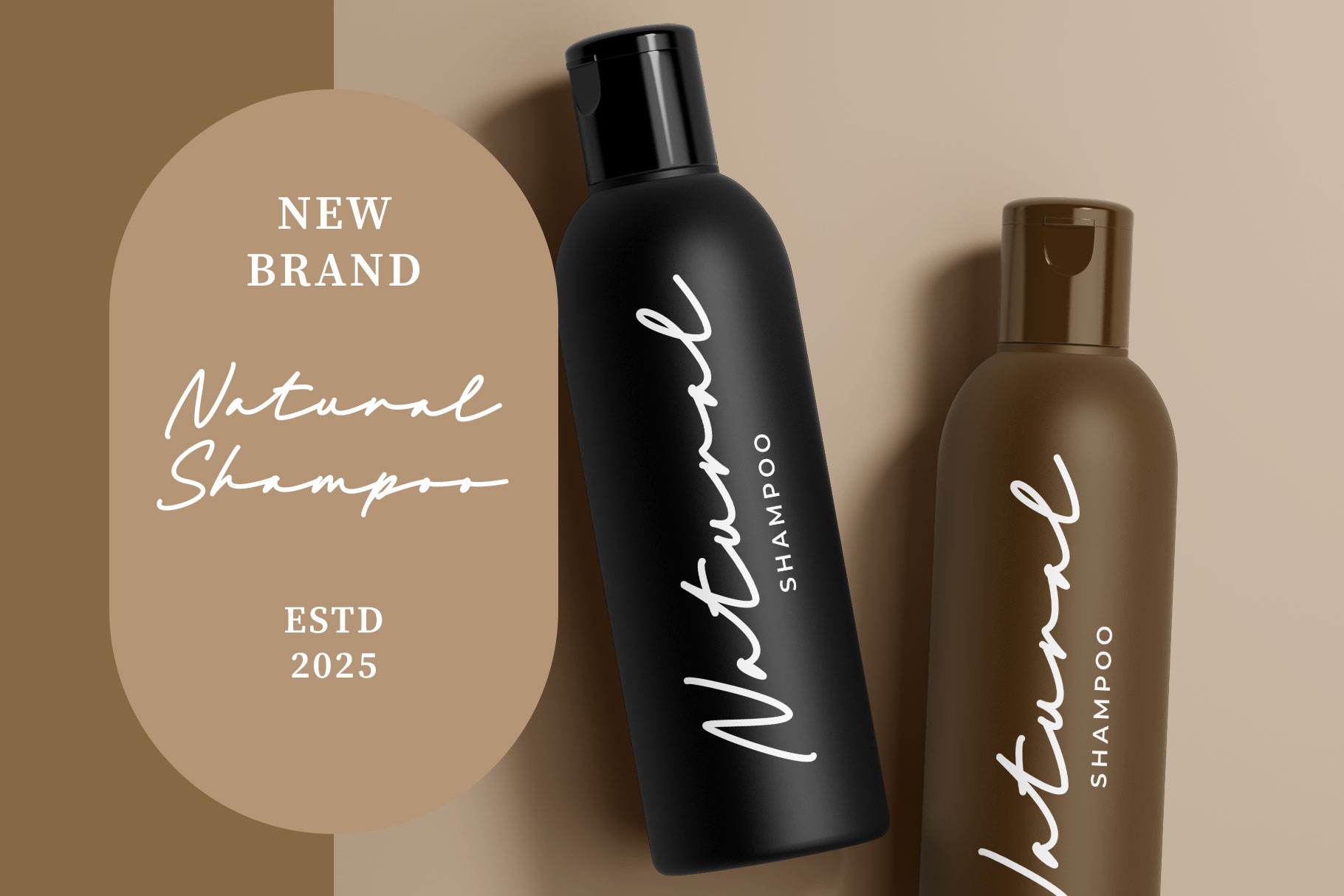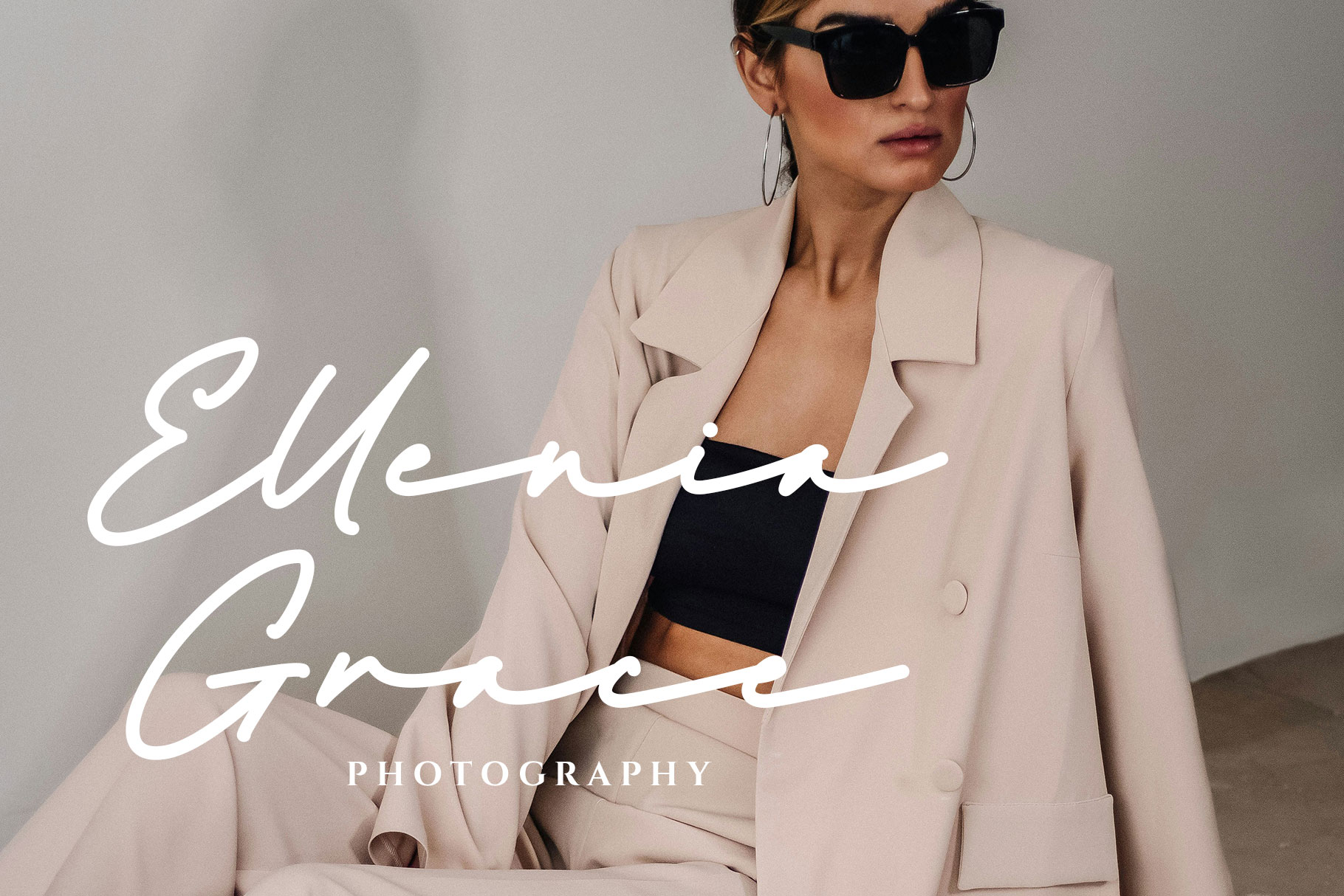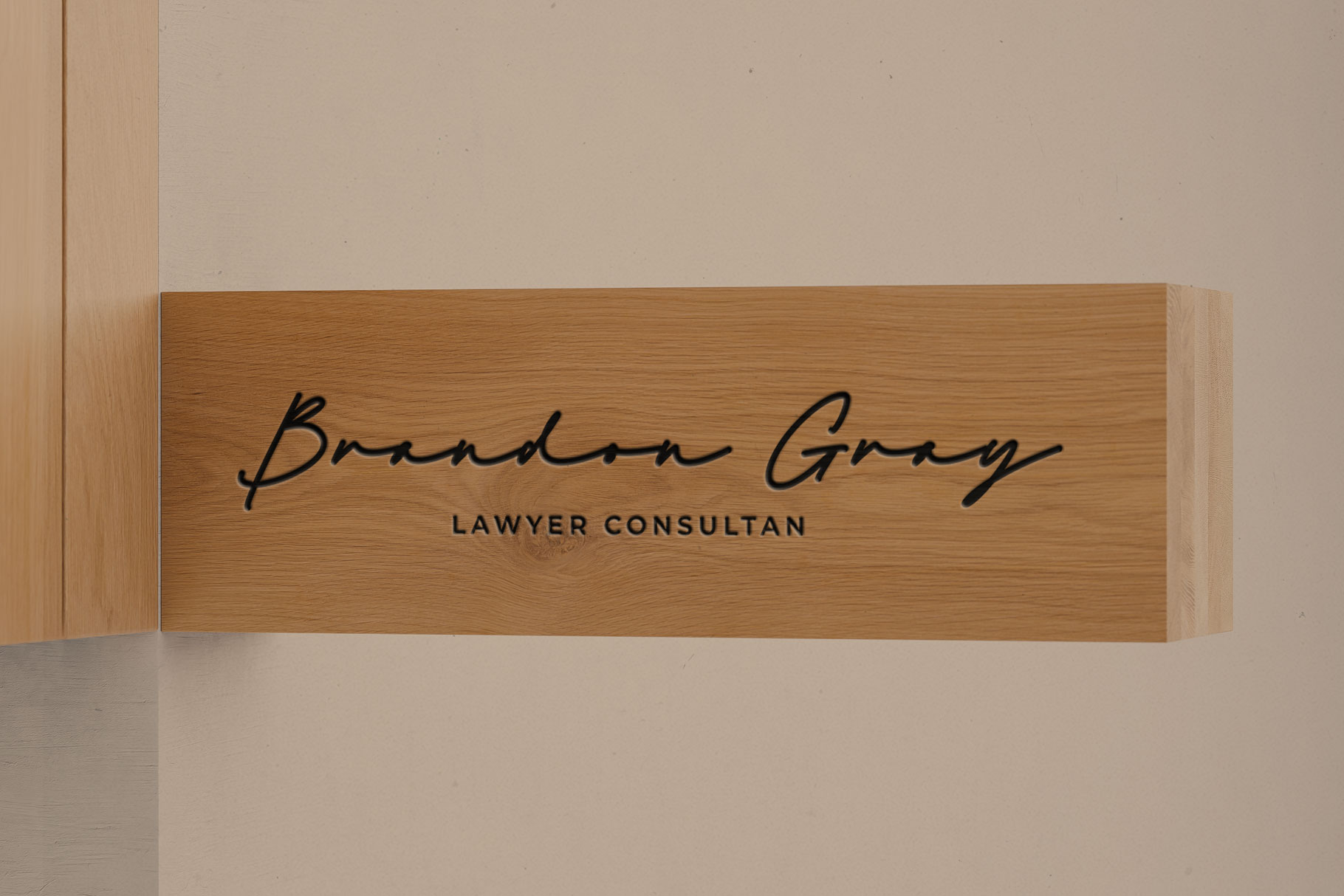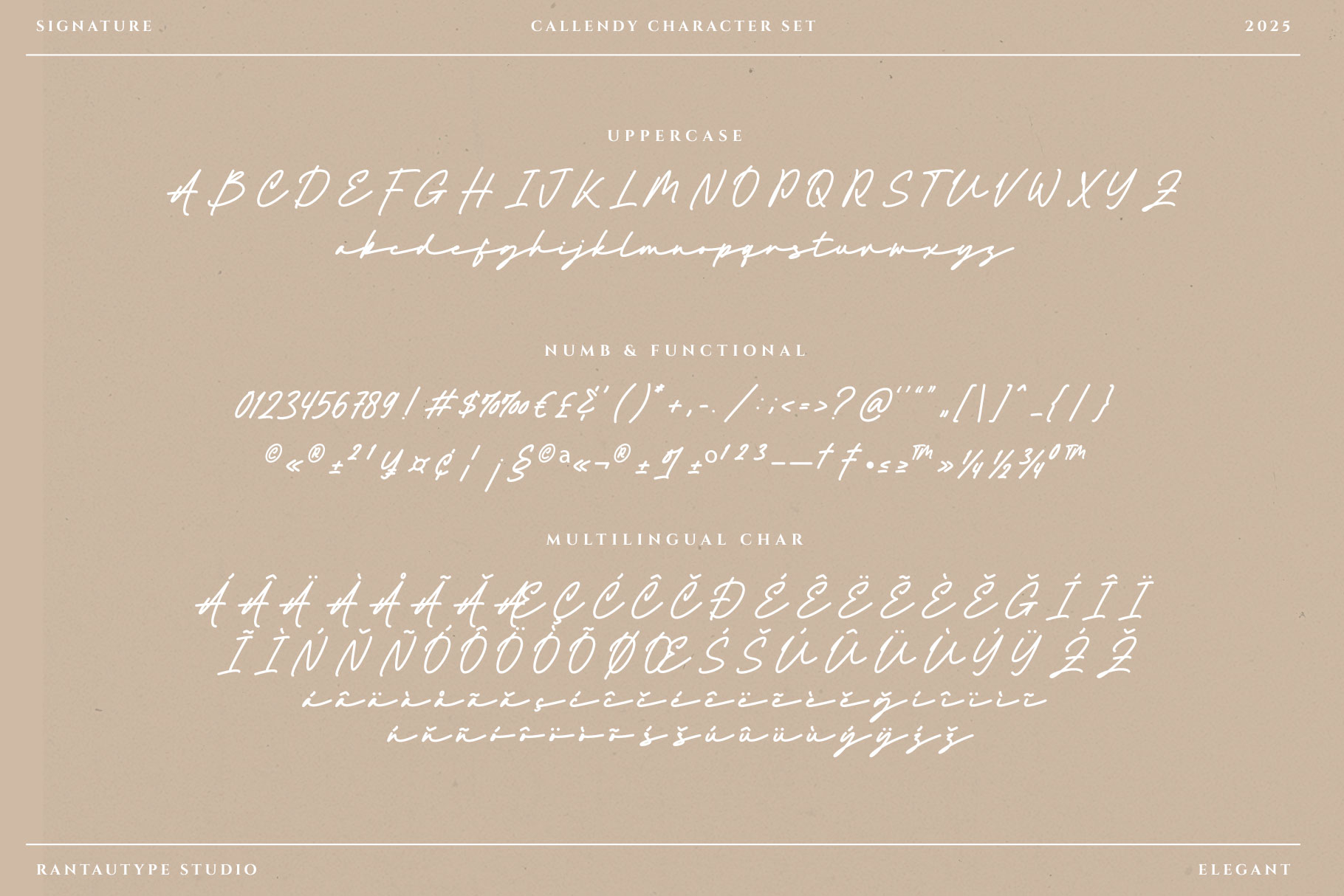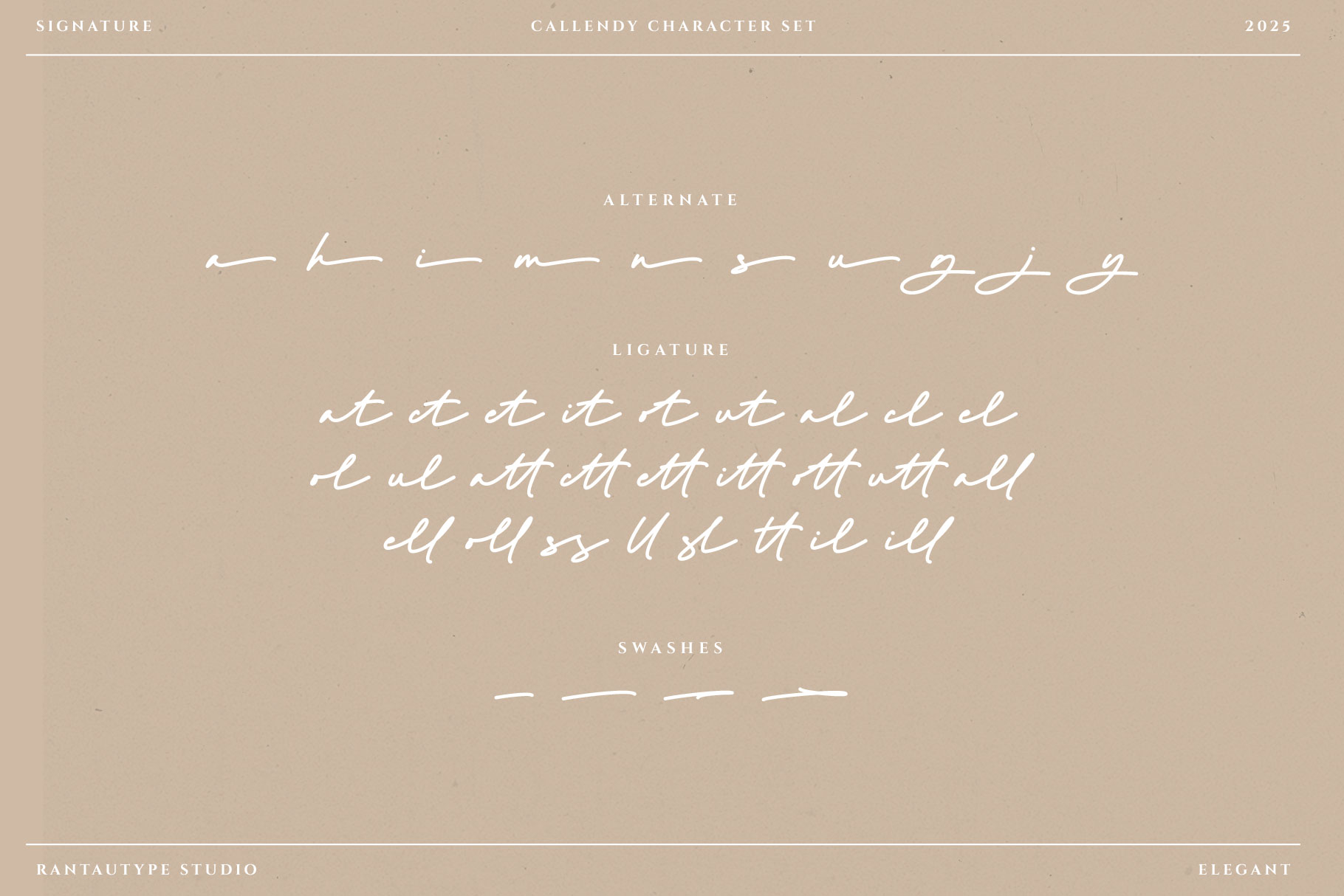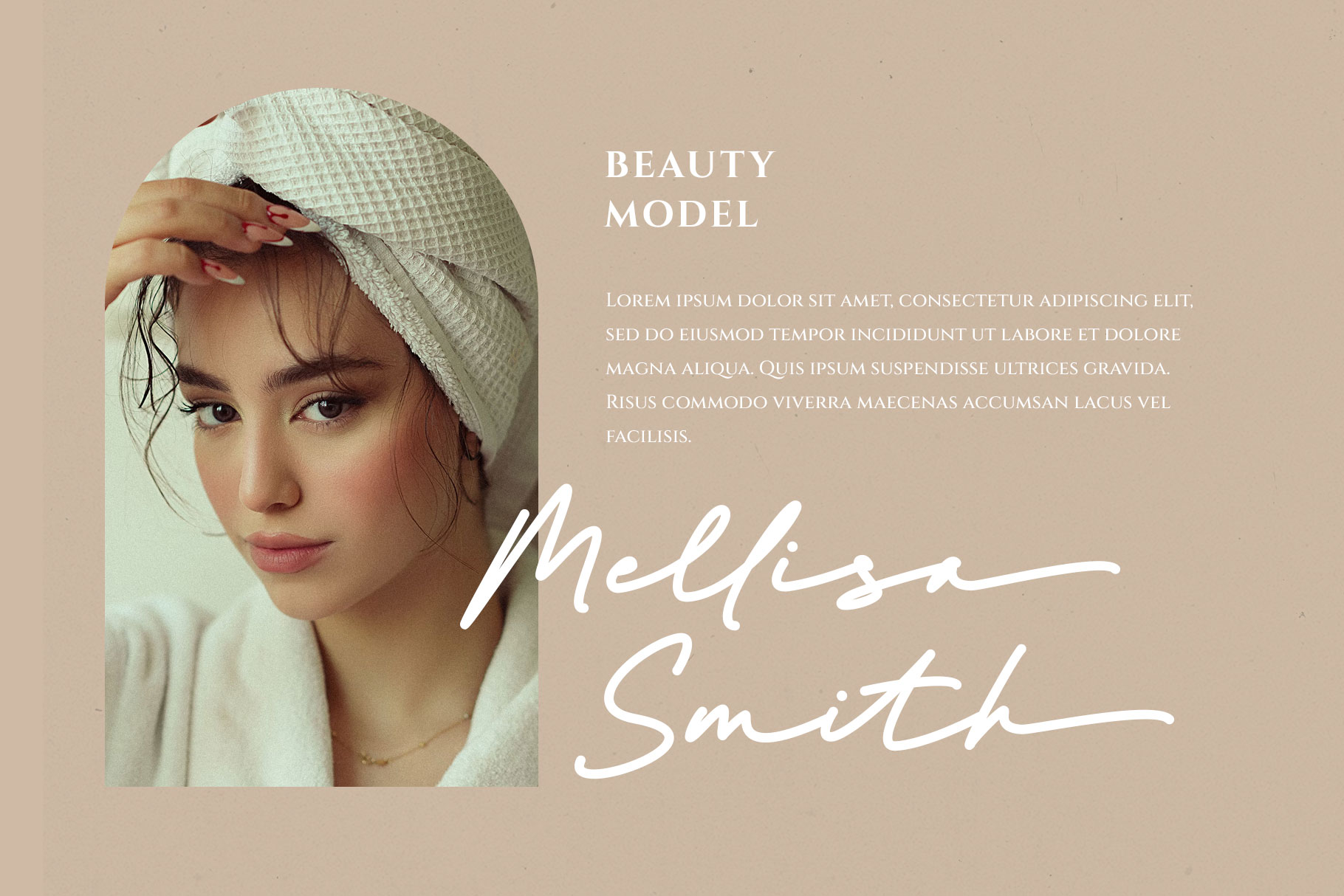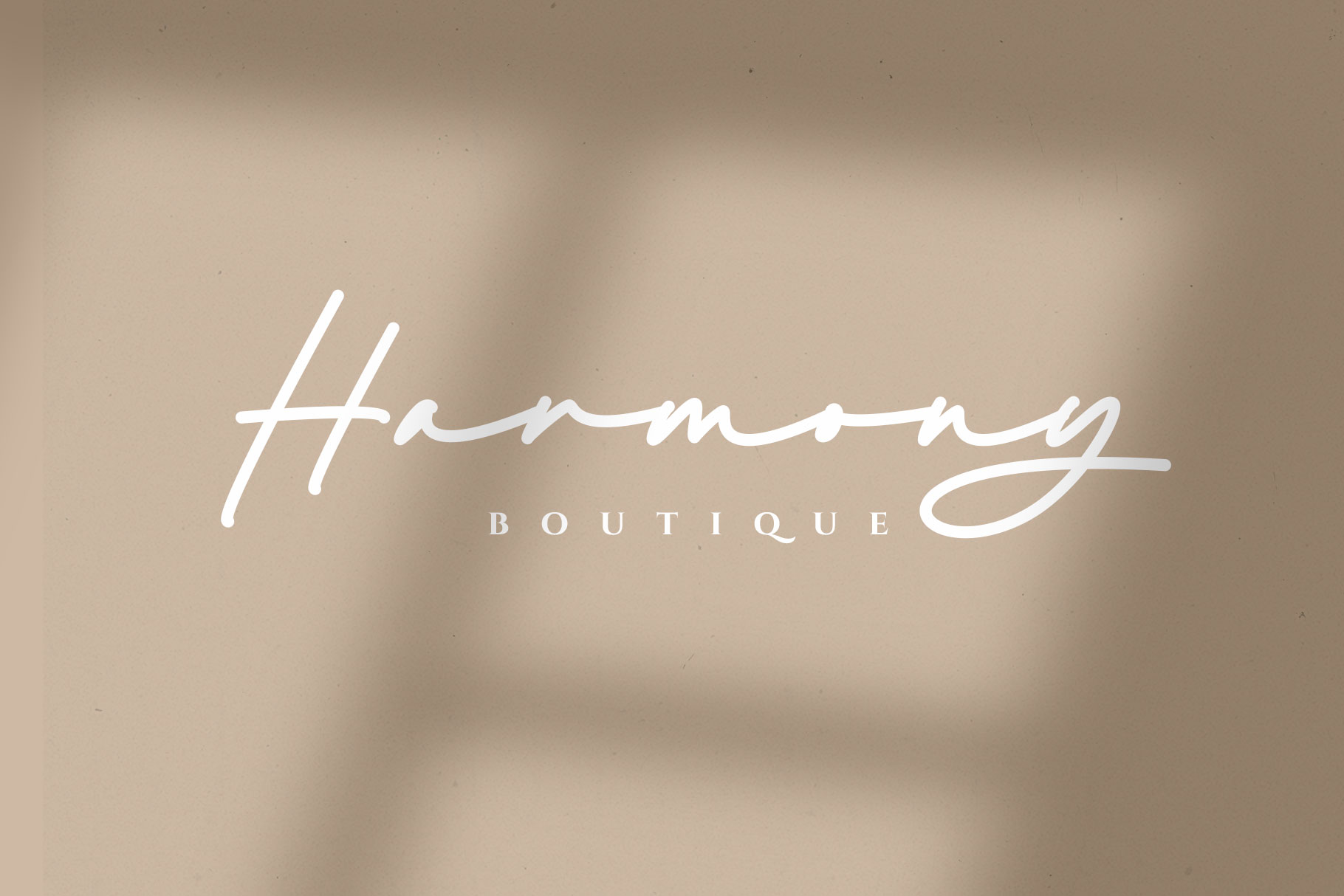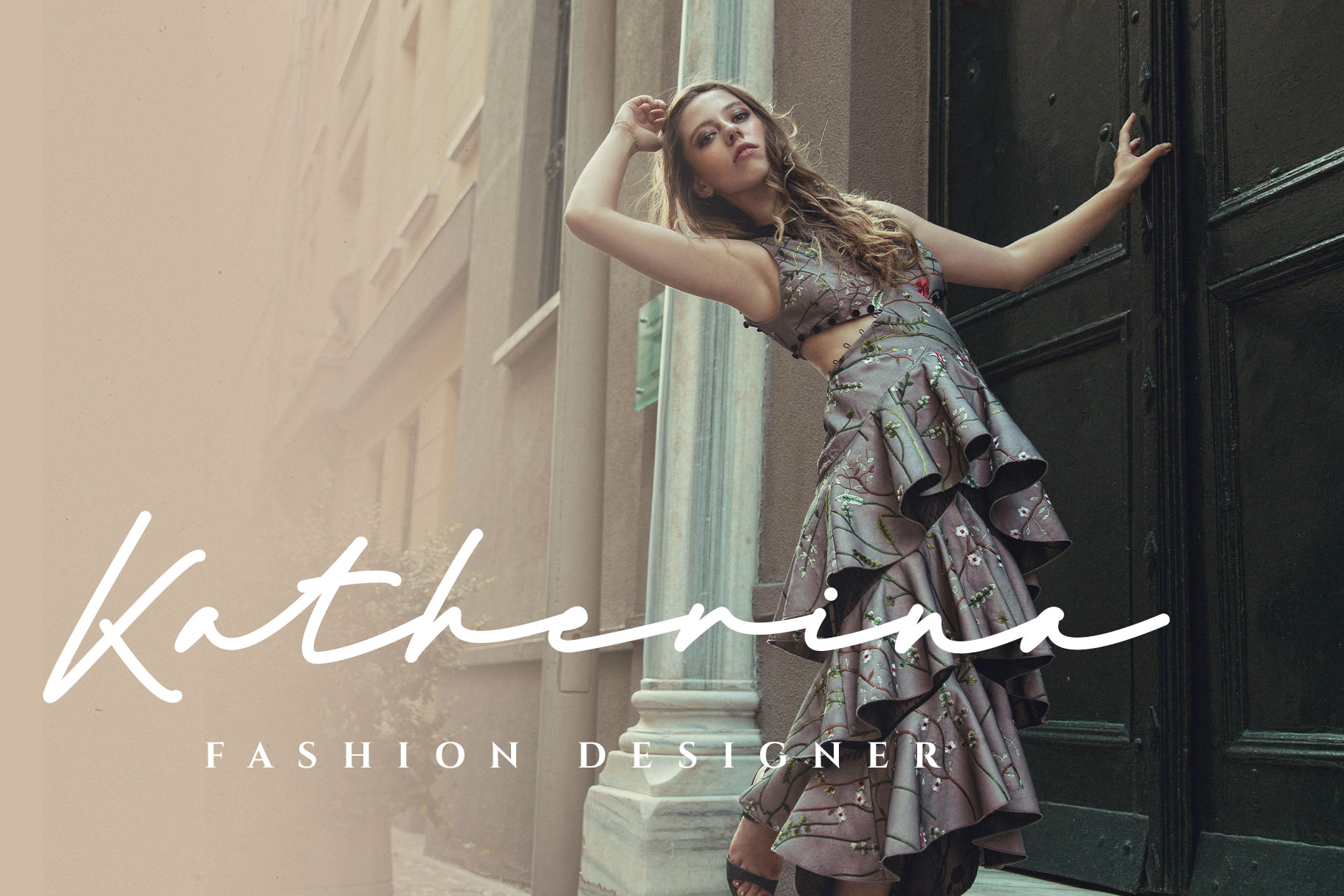
Callendy Elegant Signature Font
Callendy is elegant signature font made with passion by rantautype studio. Callendy come with natural fluid strokes of a personal touch. Callendy is a perfectly choice for any creative endeavor, creating, modern, chic, lifestyle design such as logotype, title, cover, branding, invitations, wedding designs, display and magazine, social media posts, advertisements, printed quotes, product packaging, corporate brand, product designs, labels, photography, watermarks, special events and any other project with modern touch.